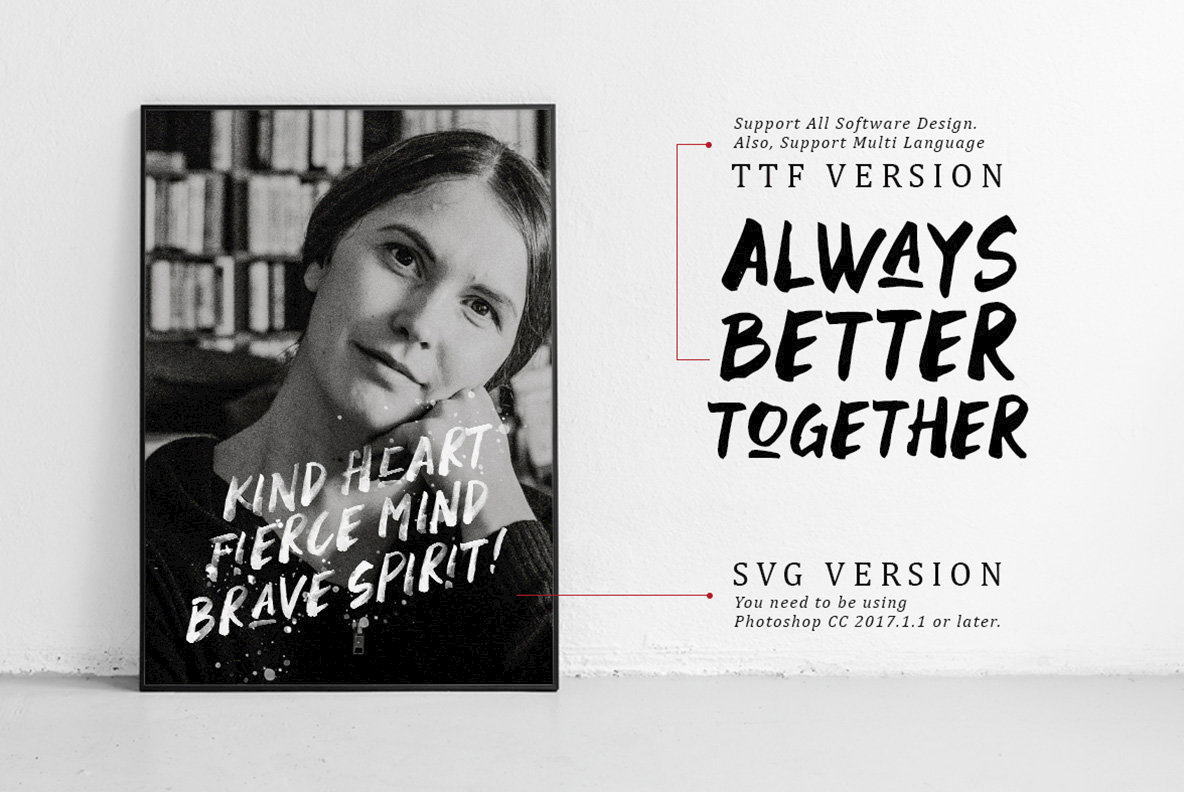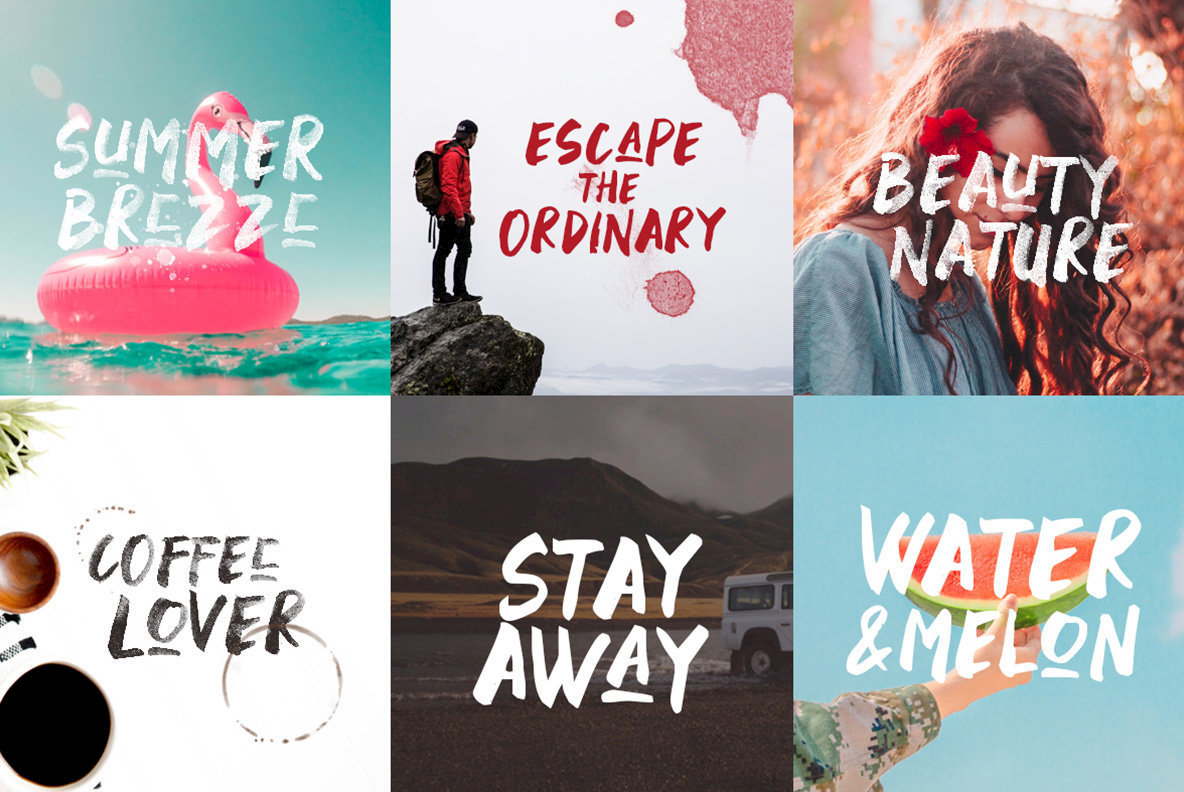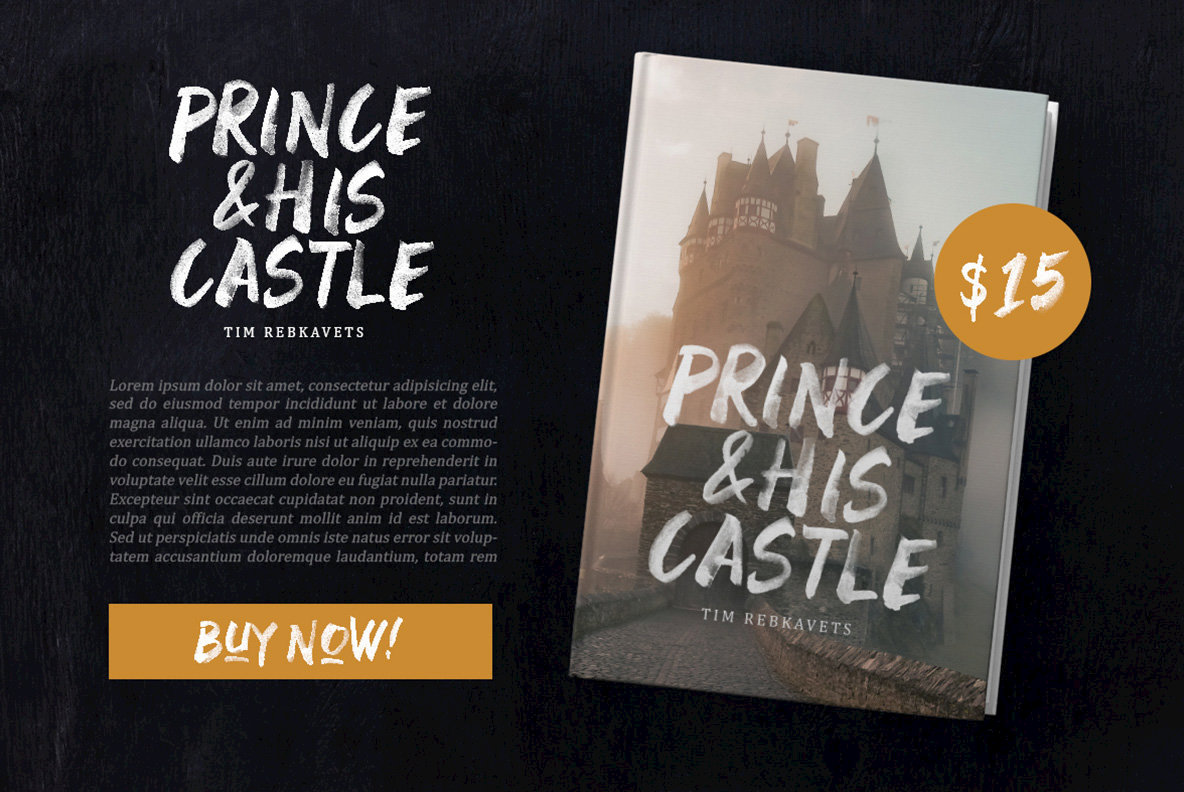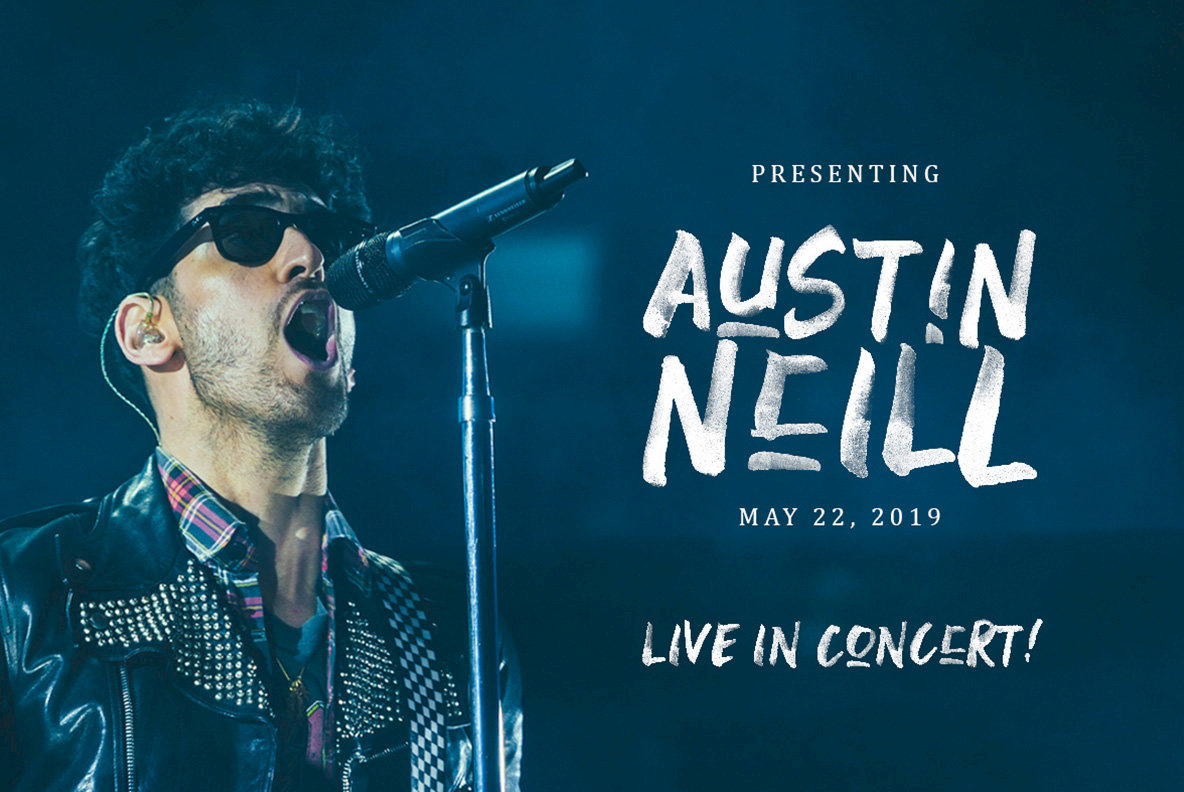
Black Space, a SVG Font, made by brush hand writing. The natural texture makes the fonts looks stands out from the crowd. Suitable for you who needs a typeface for headline, logotype, apparel, invitation, branding, packaging, advertising etc. This typeface is comes in uppercase, lowercase, punctuations, symbols & numerals, stylistic set alternate, ligatures, etc also support multilingual. It also already PUA Encoded.